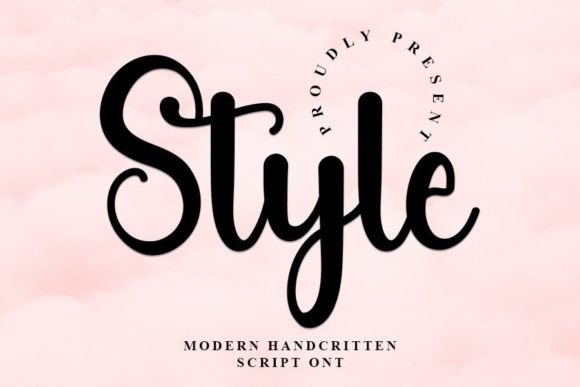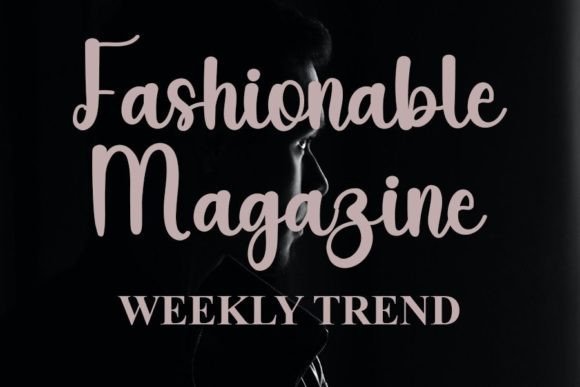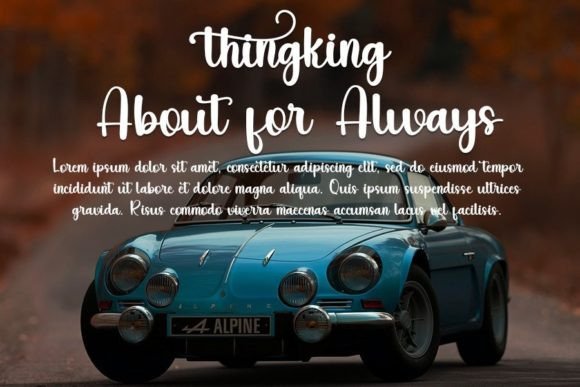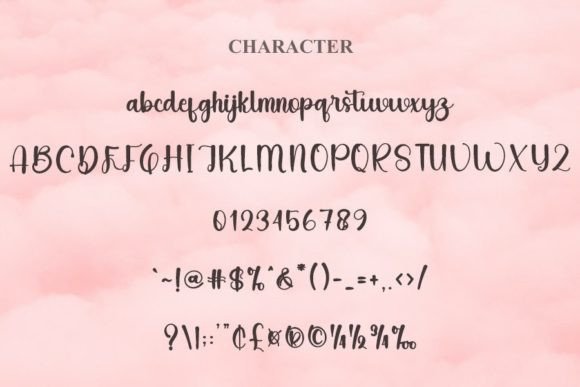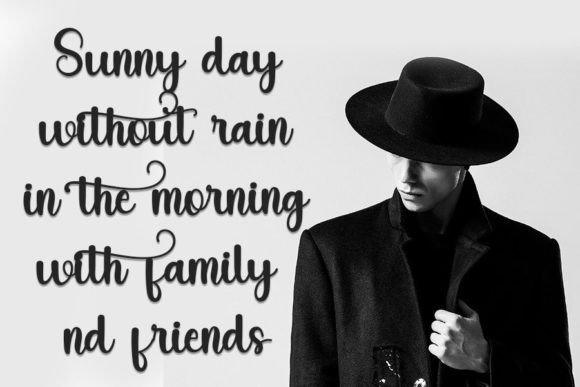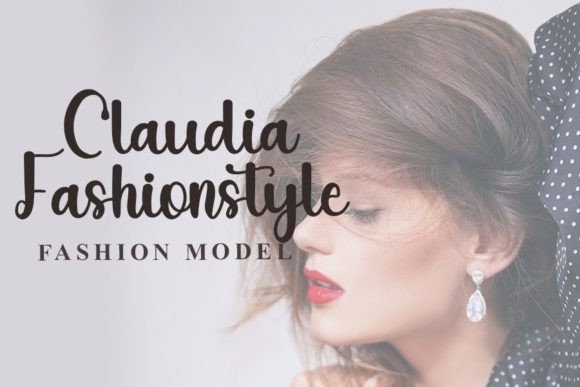
Style Font
About Style Font
Style is a chic handwritten font that exudes a contemporary atmosphere and impeccable form, drawing inspiration from the timeless elegance of classic calligraphy. With a perfect balance and a variety of graceful strokes, this font is meticulously crafted to elevate the aesthetic appeal of your projects.
The font’s design captures a harmonious blend of modernity and classic influences, giving it a unique and versatile character. Its stylish handwritten script adds a touch of sophistication, making it an ideal choice for a wide range of creative endeavors.
Style stands out as a typeface that goes beyond mere functionality – it’s a design element meant to enhance the beauty of your projects. Whether employed in branding, invitations, or any creative work, Style adds a layer of refinement that captivates the viewer. The varied yet balanced characters contribute to a visually pleasing composition, ensuring that each element complements the overall design.
One of Style’s notable features is its ability to effortlessly integrate into different design contexts. Its contemporary flair makes it suitable for modern projects, while its timeless calligraphic roots bring a sense of tradition. This duality makes Style a valuable asset for designers seeking a font that can adapt seamlessly to diverse visual requirements.
In summary, Style is not just a font; it’s a statement of elegance and contemporary charm. Its impeccable form, inspired by classic calligraphy, ensures that your projects stand out with a touch of sophistication. Choose Style to add a stylish and timeless atmosphere to your creative endeavors, and watch as it enhances the overall beauty of your designs.